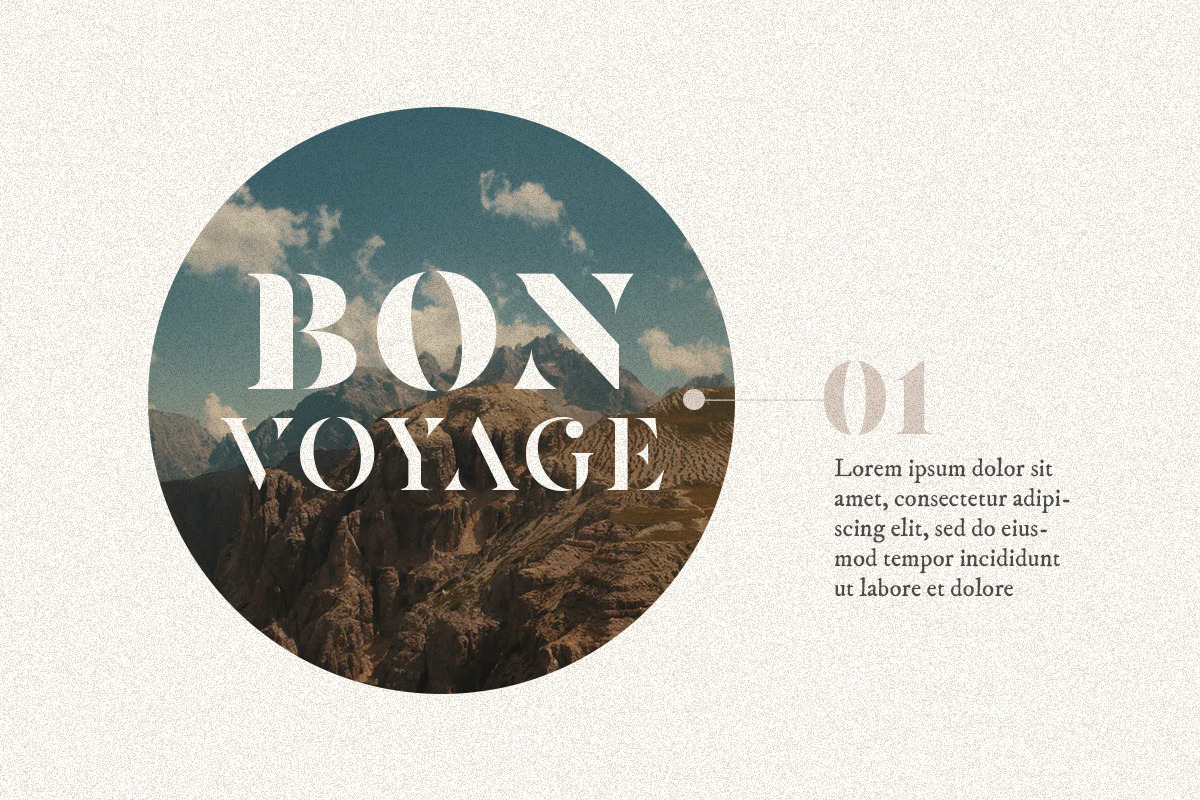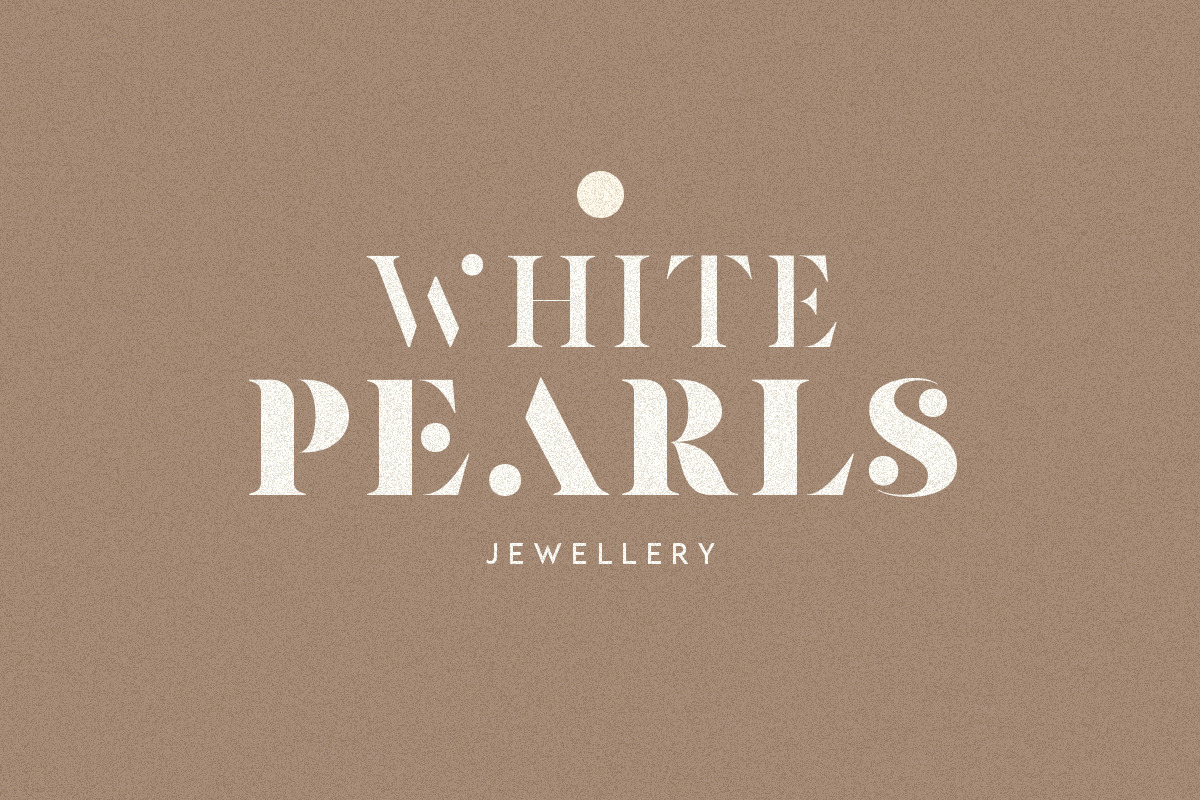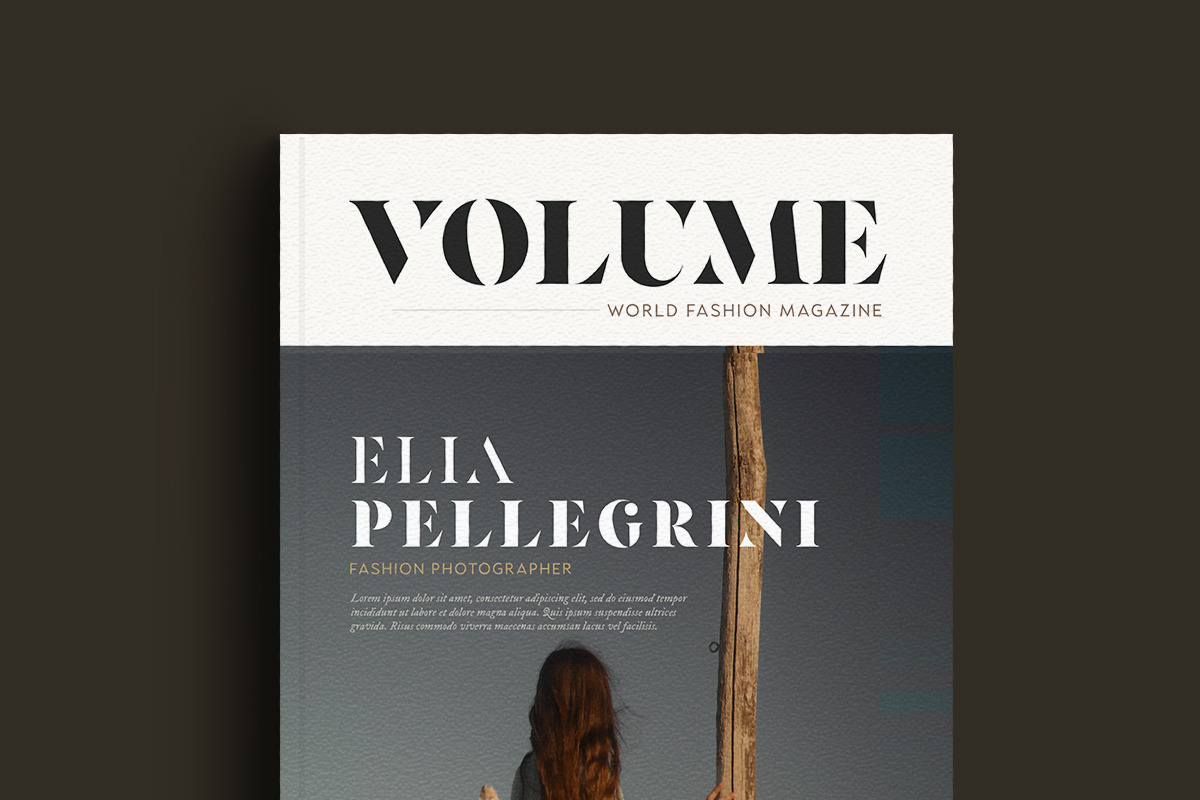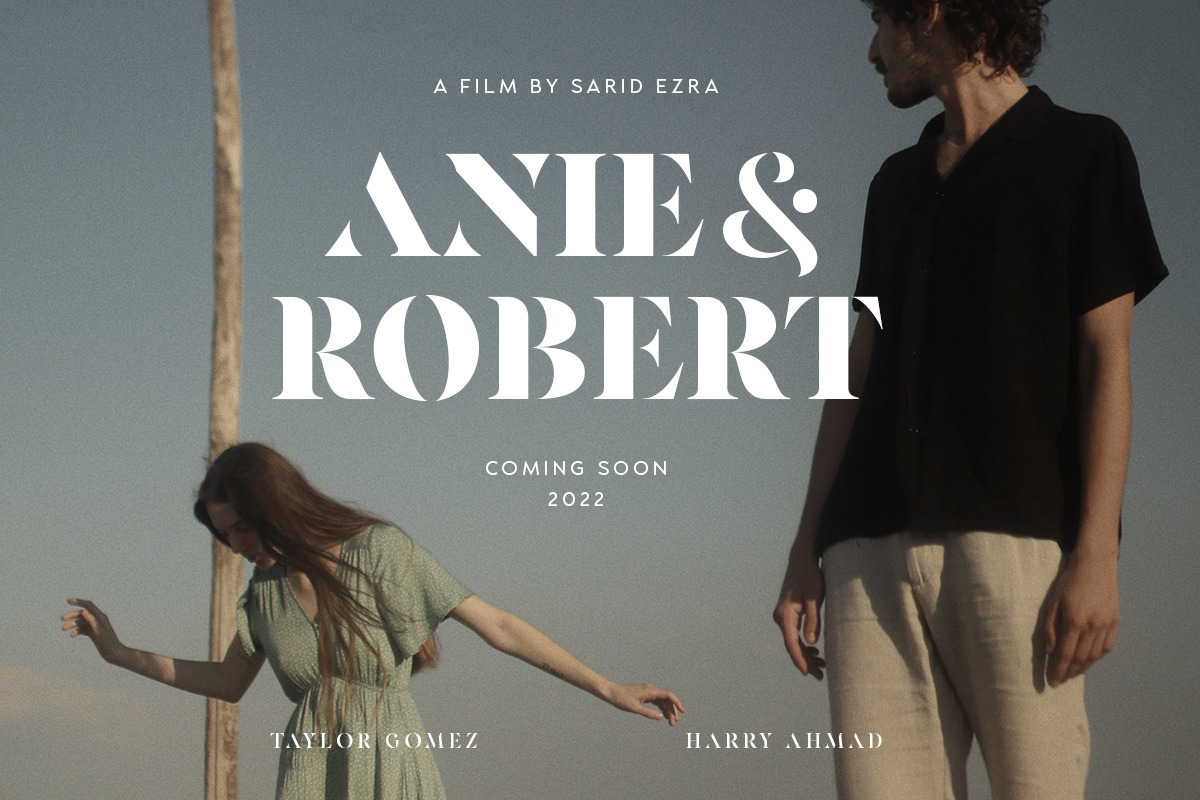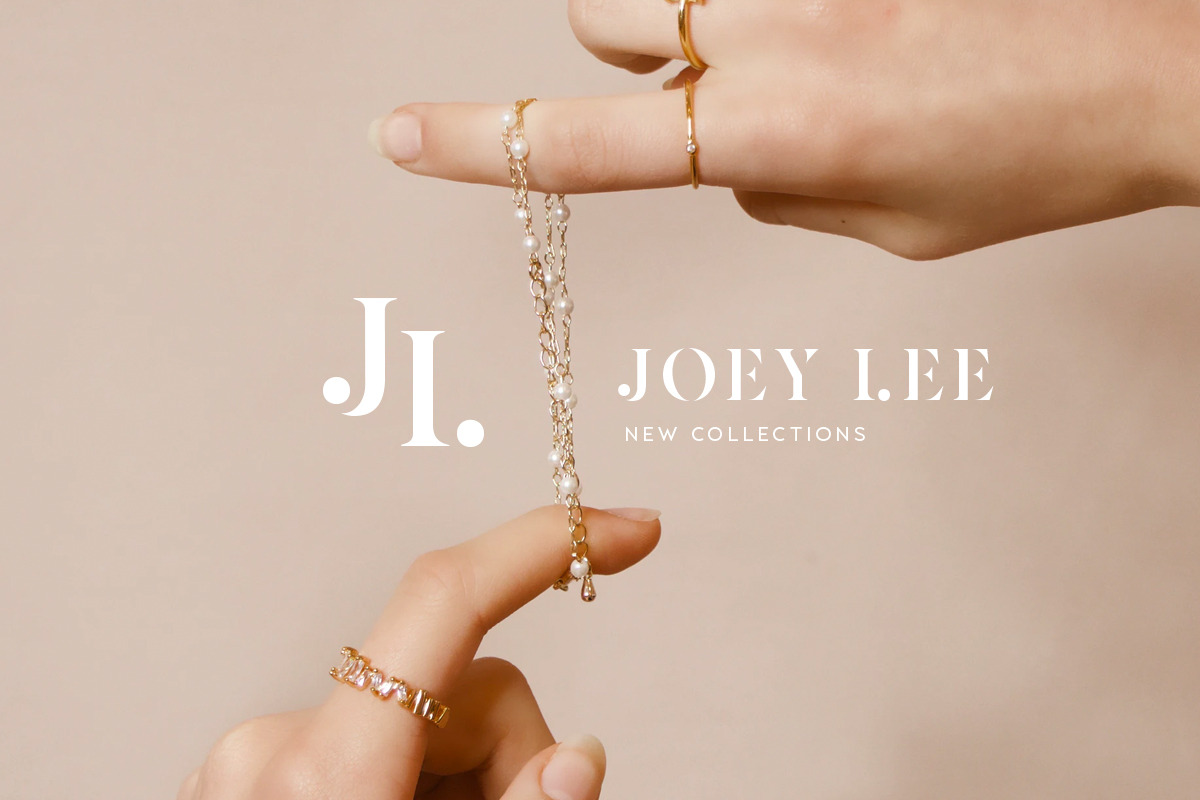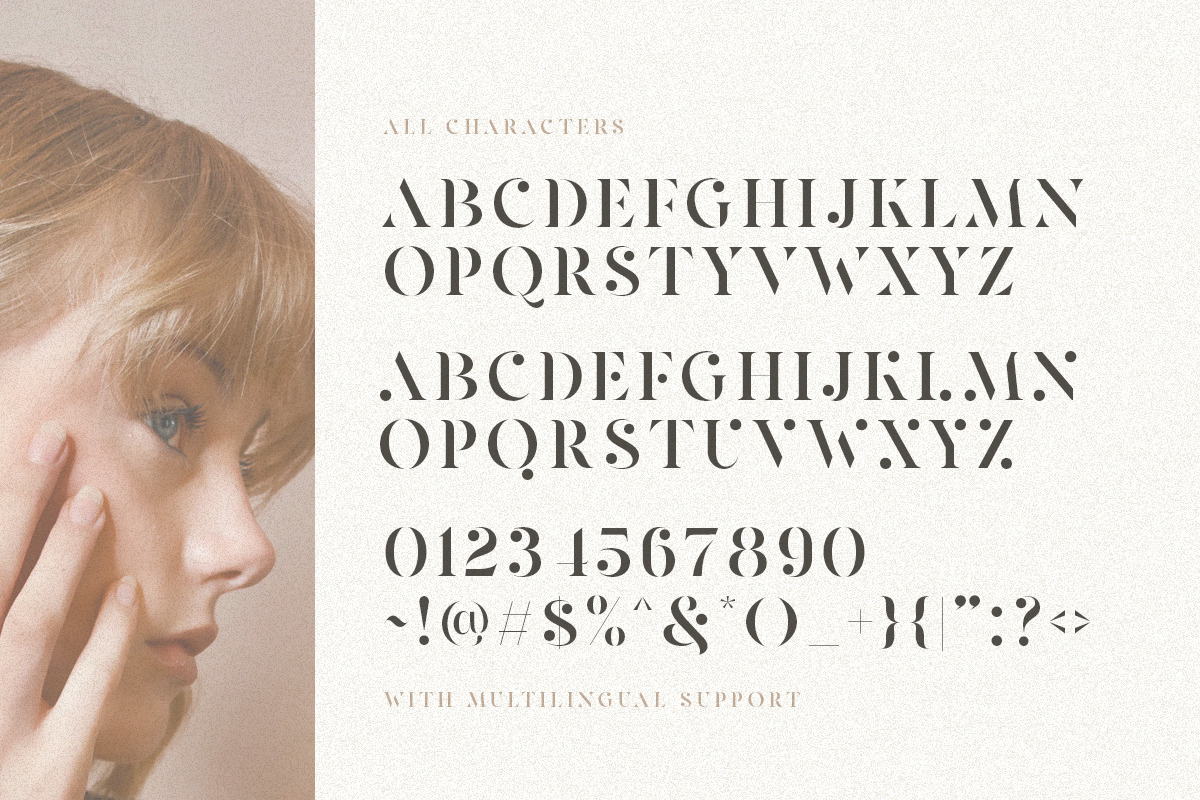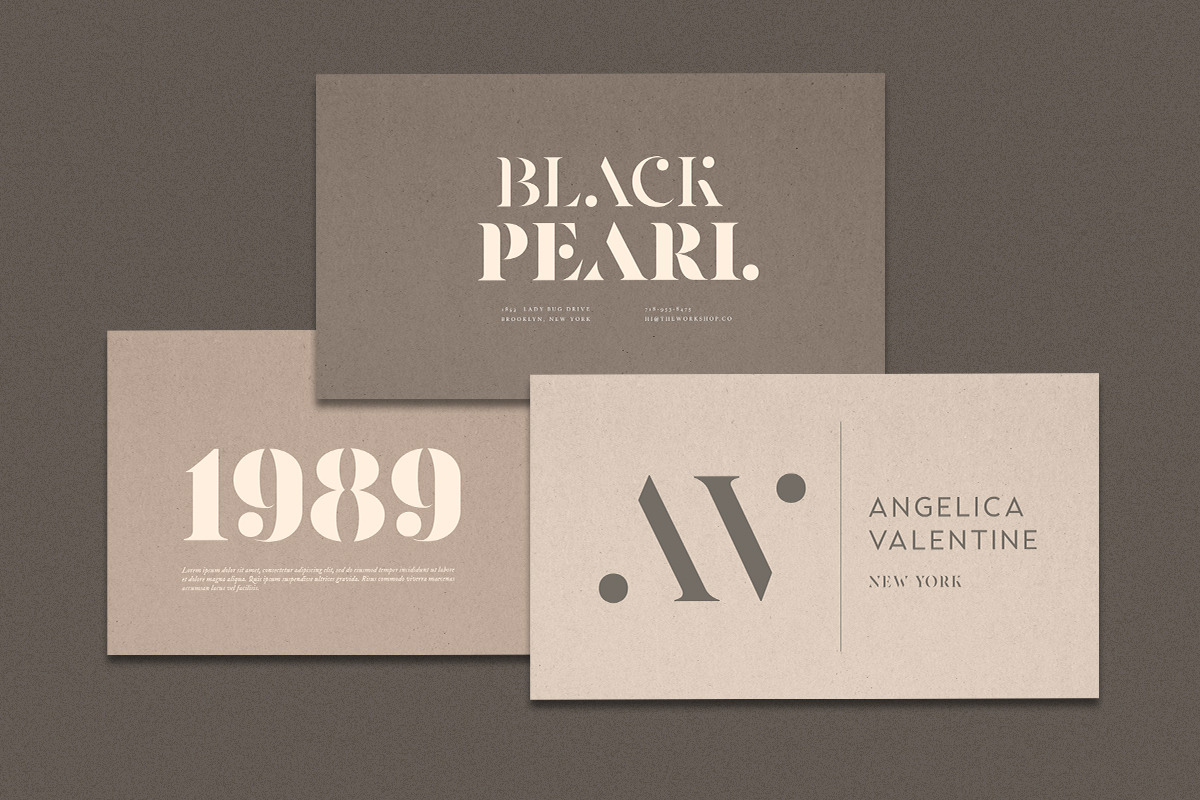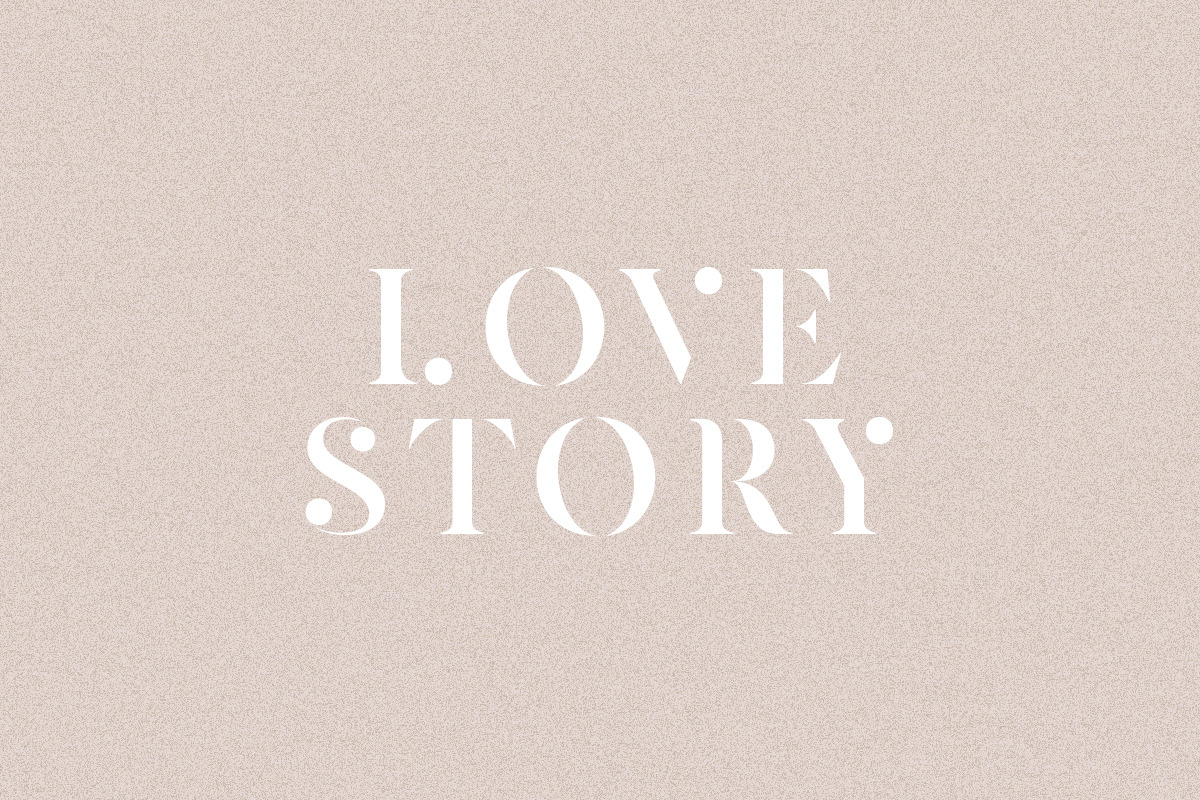
Pearlone - Stylish Stencil Serif
Introducing, Pearlone (Read : Pearl One), a stylish stencil serif!
Pearlone is a stylish and modern stencil serif that will make your project more elegant and appeal. This font called Pearl-one, because the dot in some characters inspired by the beautiful pearl. This font comes with regular and bold style that have a contrast look. You don't one to use the pearl version? Don't worry, it comes also in regular form. You can access the regular form with uppercase, and the special one from lowercase. You can use this font for any purposes, such as a branding logo, poster, or even editorial! This font also support multi language.